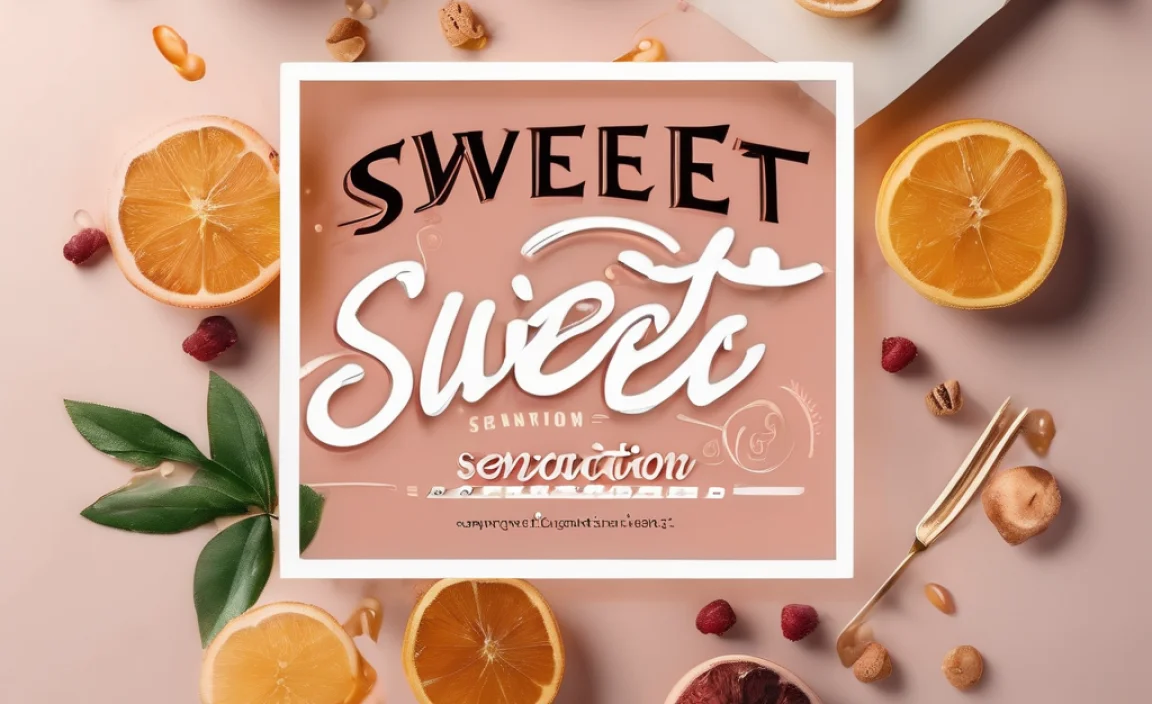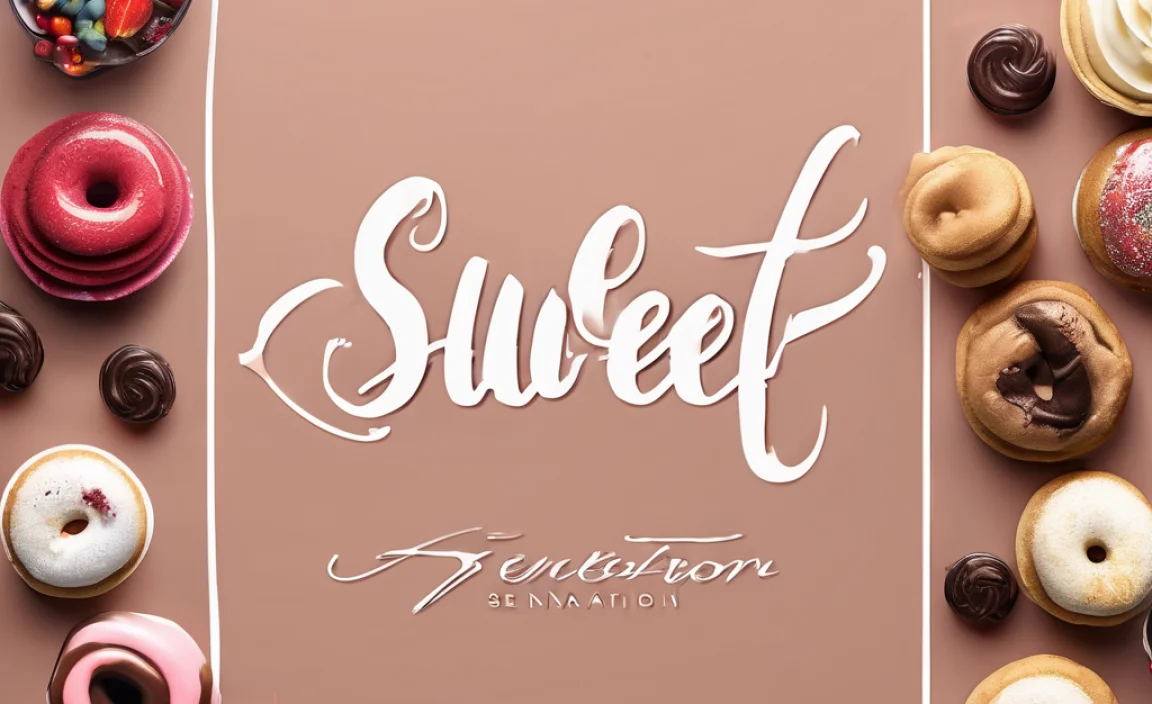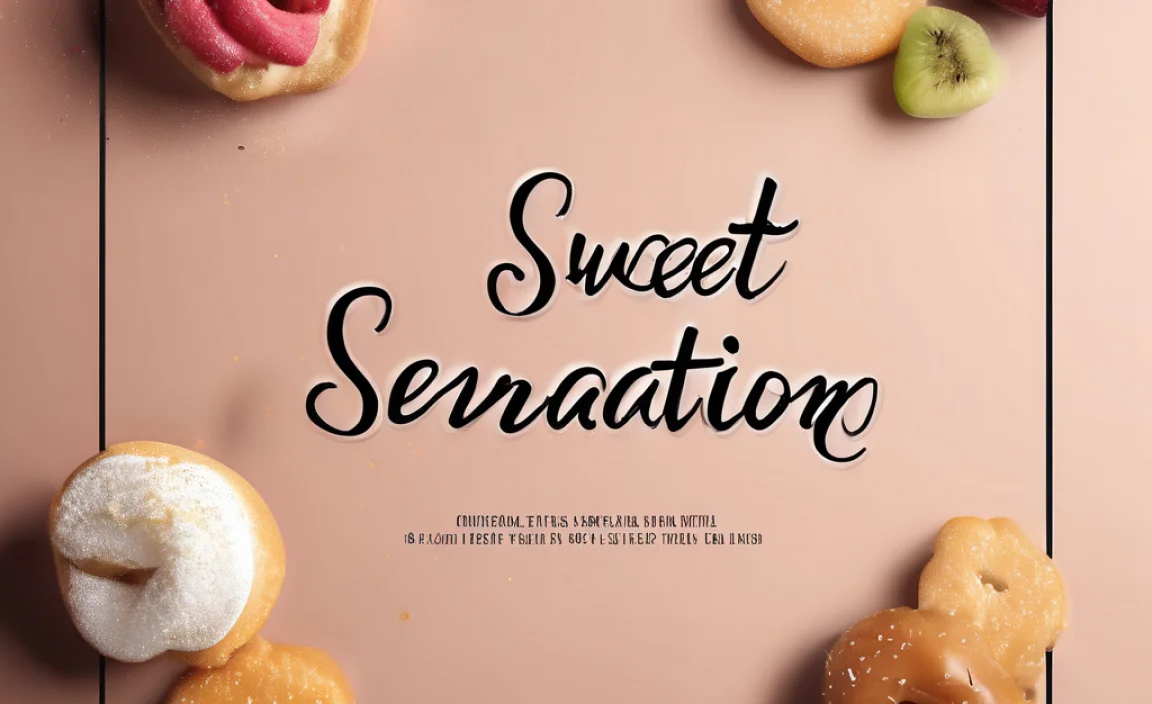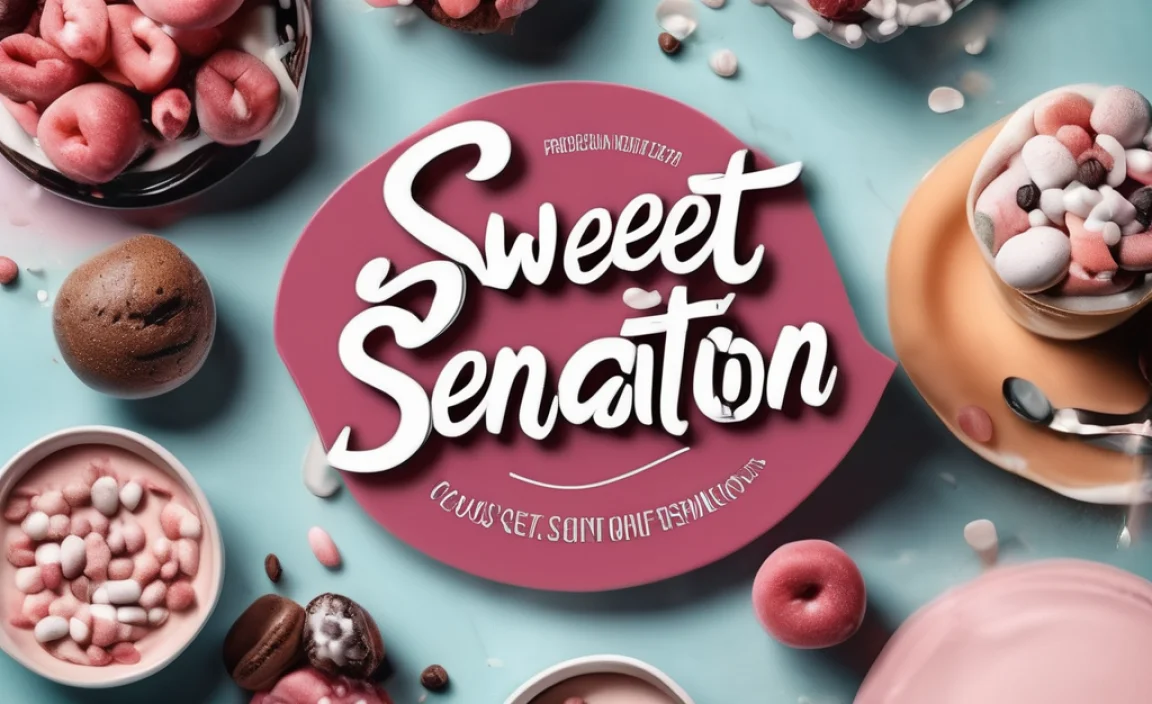
The Sweet Sensation Font is a beautiful and elegant script typeface known for its fluid strokes and unique appeal. Designed by Billy Argel, this font is perfect for branding, printed materials, and digital designs. Whether you’re looking for a decorative font for logos or a stylish calligraphy font for invitations, Sweet Sensation offers an excellent balance of charm and readability.
Font Family & Key Features
Sweet Sensation belongs to the script font family, combining elements of vintage and modern design styles. Here’s a quick overview:
- Font Name: Sweet Sensation
- Designer: Billy Argel
- Style: Script, Calligraphy
- Character Map: Uppercase, lowercase, numerals, and special symbols
- Supported Languages: Latin-based scripts
Font Family Includes:
- Sweet Sensation Regular
- Sweet Sensation Italic
- Sweet Sensation Bold
- Sweet Sensation Bold Italic
Where Can You Use Sweet Sensation Font?
This font is versatile and widely used for various design applications:
- Logos & Branding – Perfect for fashion, beauty, and luxury brands.
- Printed Materials – Suitable for posters, business cards, and invitations.
- Web Design – Enhances website typography and landing pages.
- Advertising & Marketing – Great for banners, brochures, and flyers.
- Handwritten & Calligraphy Projects – Ideal for digital typography that mimics natural handwriting.
Designers and creative professionals appreciate the Sweet Sensation Font for its elegance and usability. It has been widely used in branding projects, posters, and website designs, especially in Los Angeles-based creative industries. Users love its combination of modern and vintage aesthetics, making it one of the most popular fonts in its category.
3. What Type Of Font Is Sweet Sensation?
It’s a script font with elegant handwritten strokes, ideal for calligraphy projects.
4. Does This Font Support Multiple Languages?
Yes, it supports various Latin-based languages.